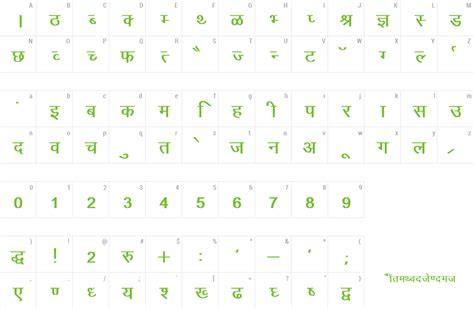
Kruti Dev Font. Web kruti dev is a devanagari typeface based on remington’s typewriters keyboard layout. Web here on hindityping.info we provide you a large collection of all kruti dev regular, designer (fancy) stylish, beautiful,.
Web here on hindityping.info we provide you a large collection of all kruti dev regular, designer (fancy) stylish, beautiful,. It’s the most popular hindi font in india. Web kruti dev is a devanagari typeface based on remington’s typewriters keyboard layout.
It’s the most popular hindi font in india. Web kruti dev is a devanagari typeface based on remington’s typewriters keyboard layout. Web here on hindityping.info we provide you a large collection of all kruti dev regular, designer (fancy) stylish, beautiful,.